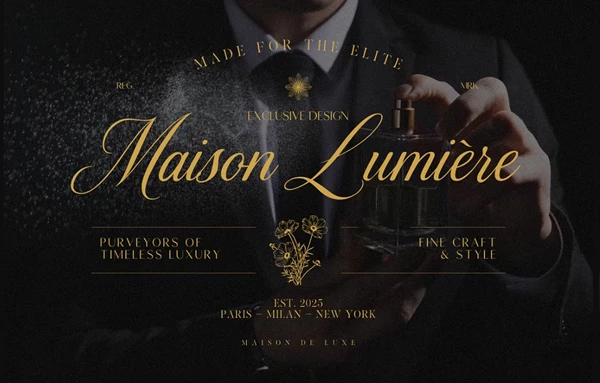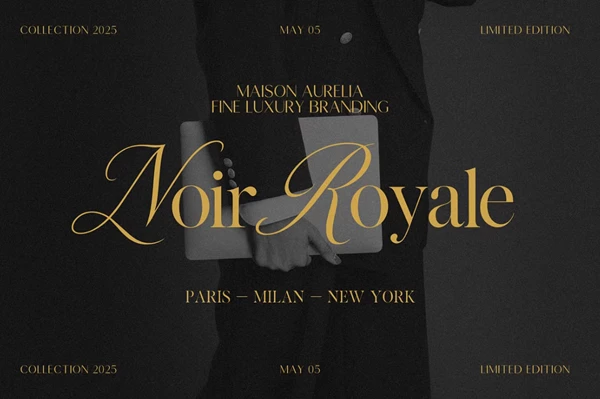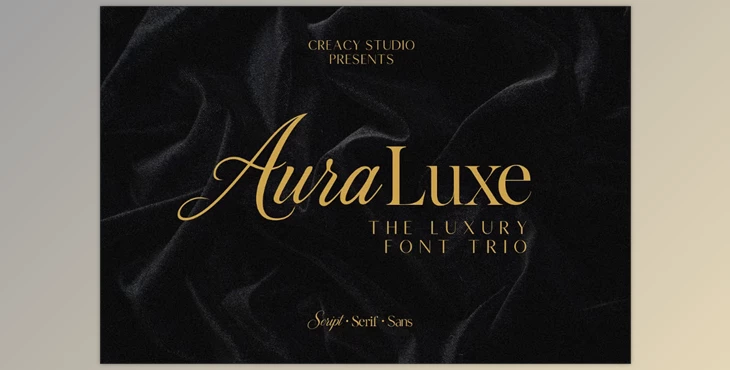
Auraluxe The Luxury Font Trio:
Auraluxe is a luxury font trio consisting of an upscale handwritten font, Auraluxe Script, a traditional upscale serif Auraluxe Serif and a modern take on a sans serif Auraluxe Sans. Use it to bring a touch of class to your perfume label, wine bottle, fashion store front, boutique hotel and more. Your project will look like it's worth a million bucks! The Auraluxe font family allows you to mix and match to create anything from a soft, scripted branding to a heavy-handed display. Each font has characteristics that complement the other two yet can stand proudly on their own.
- All caps and lowercase alphabets included
- Numbers, punctuation and special characters included
- Multilingual supported